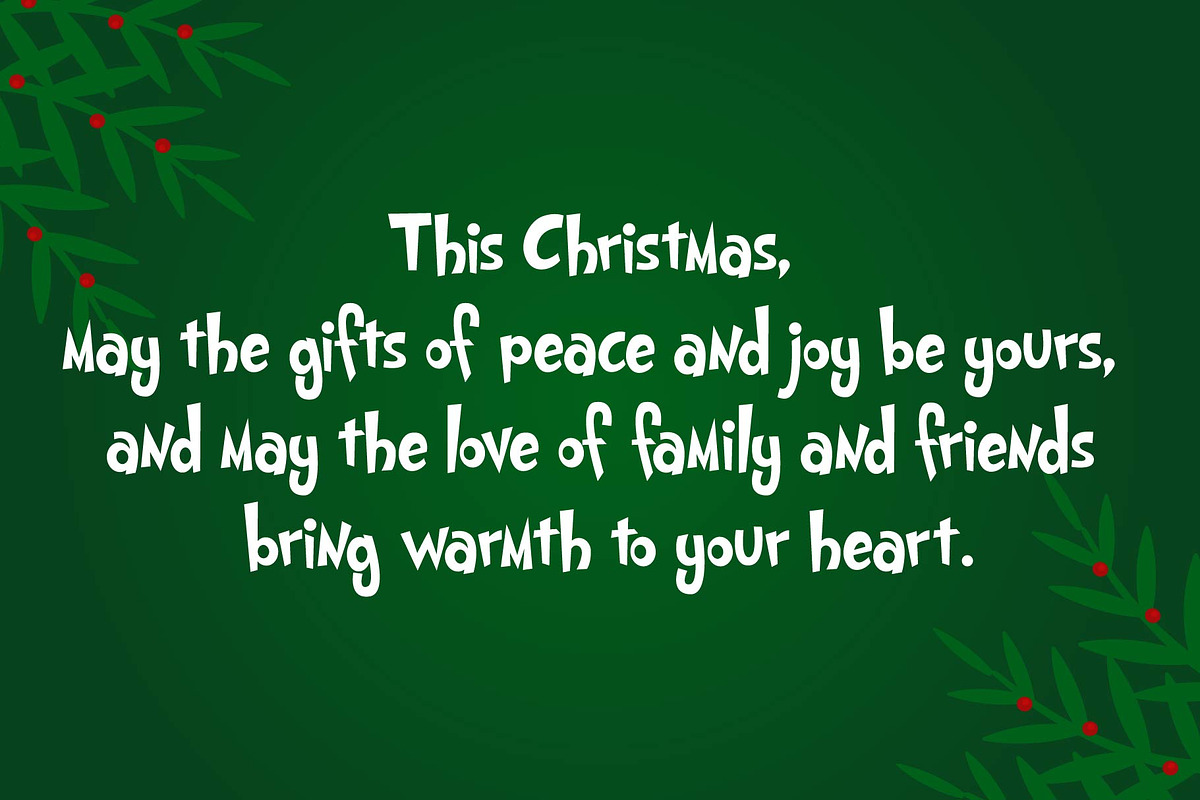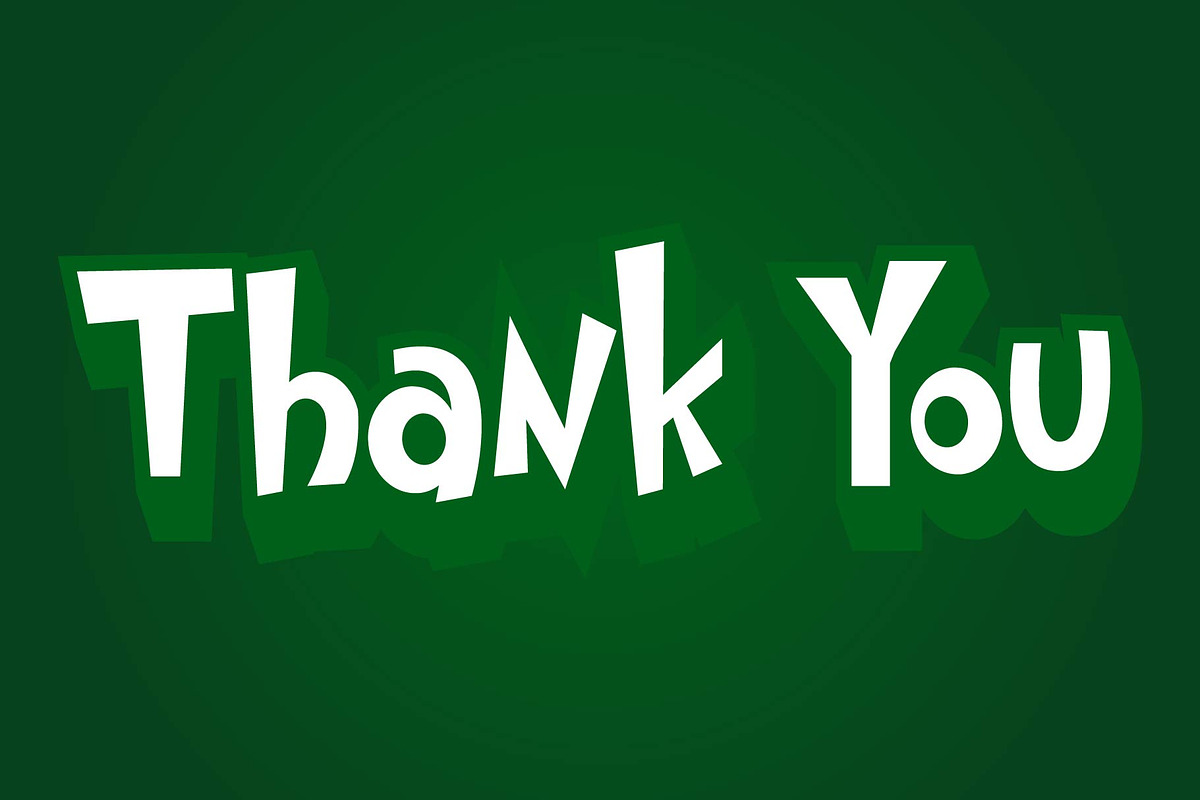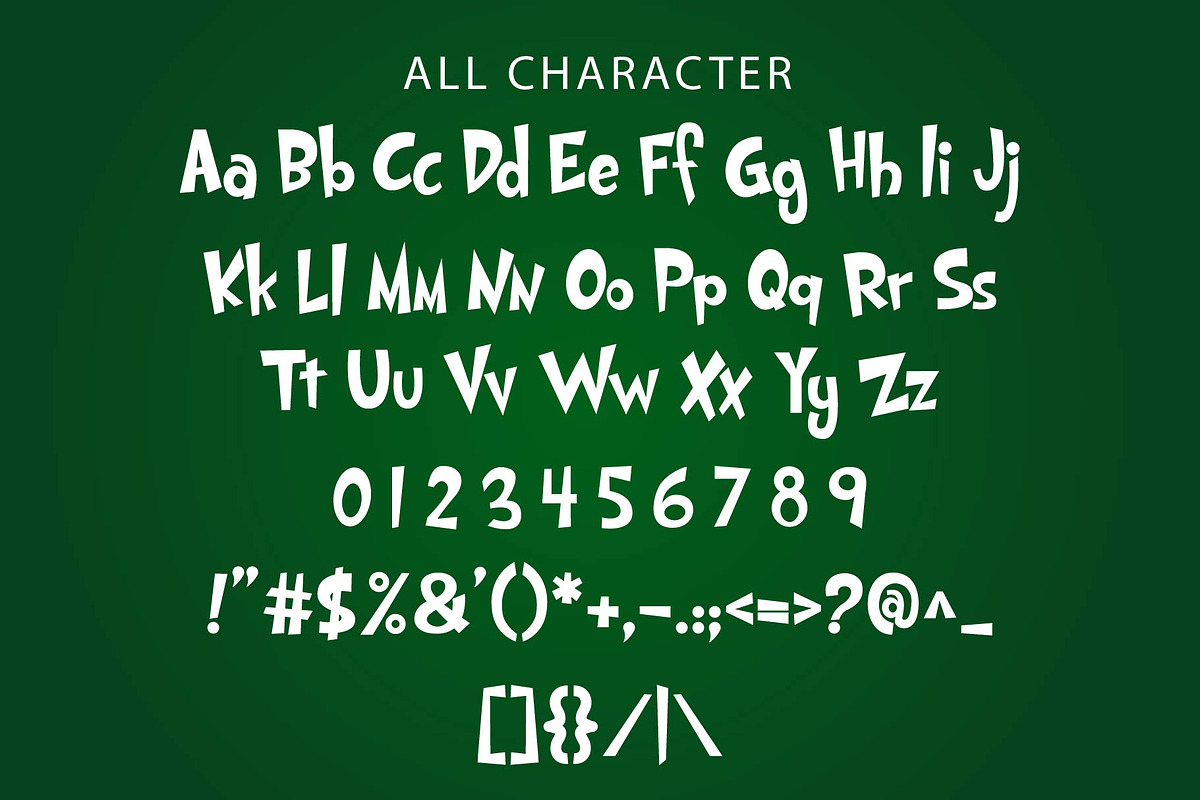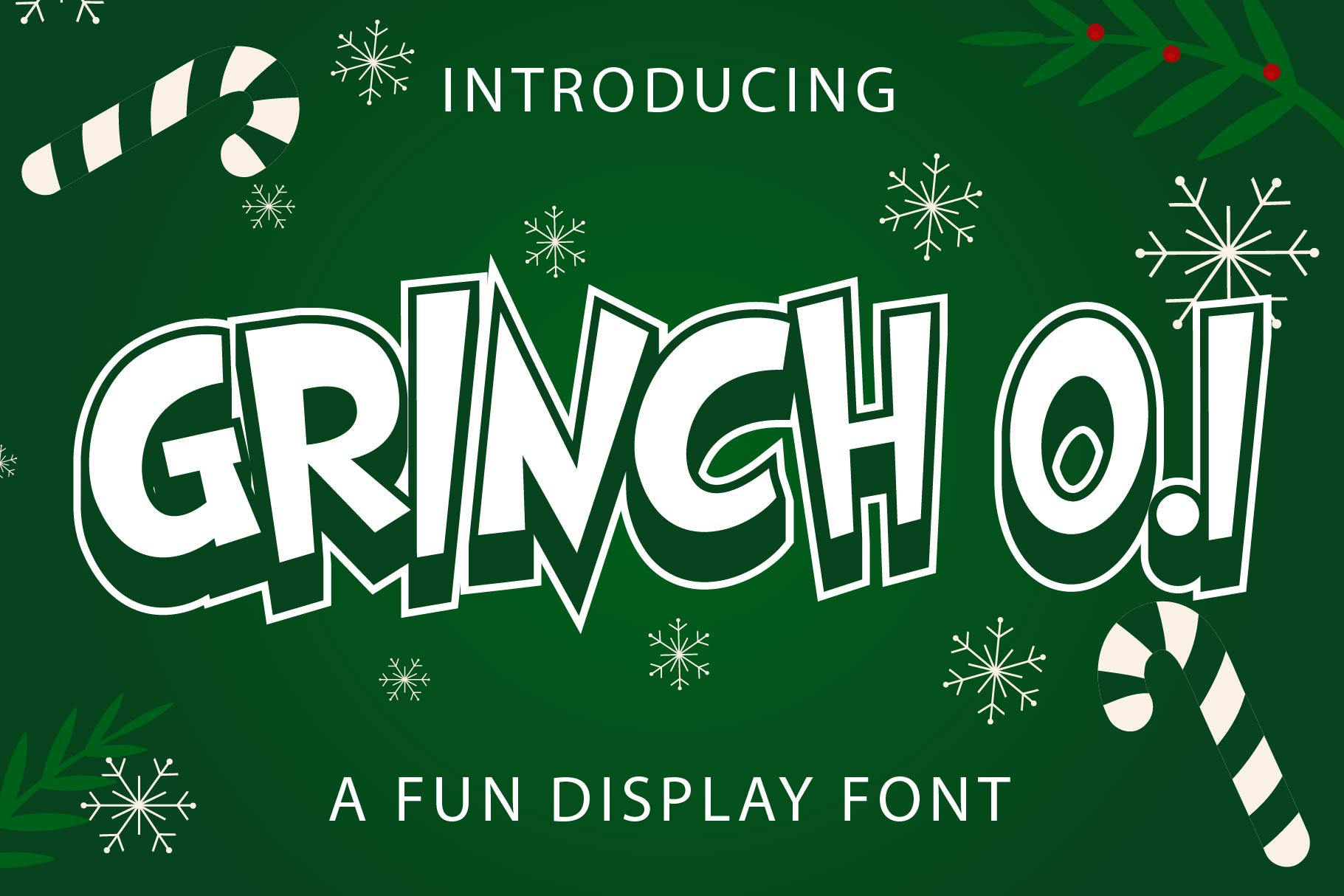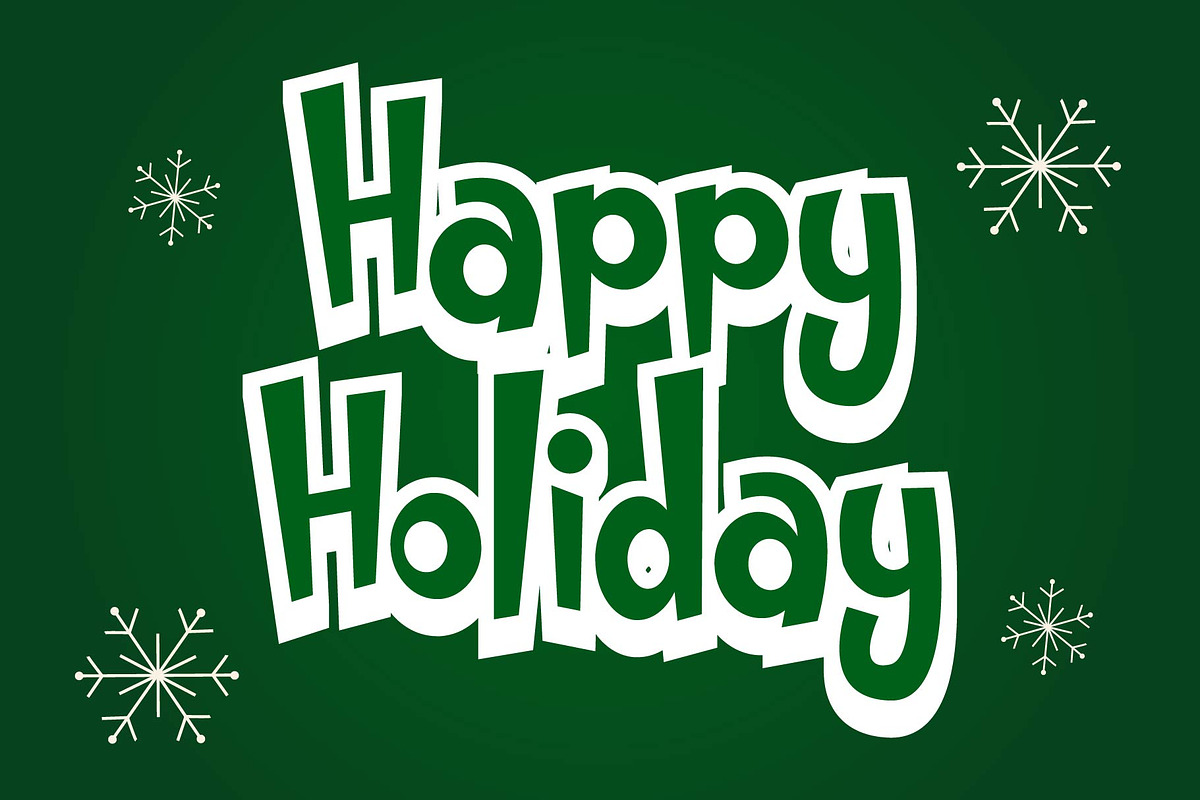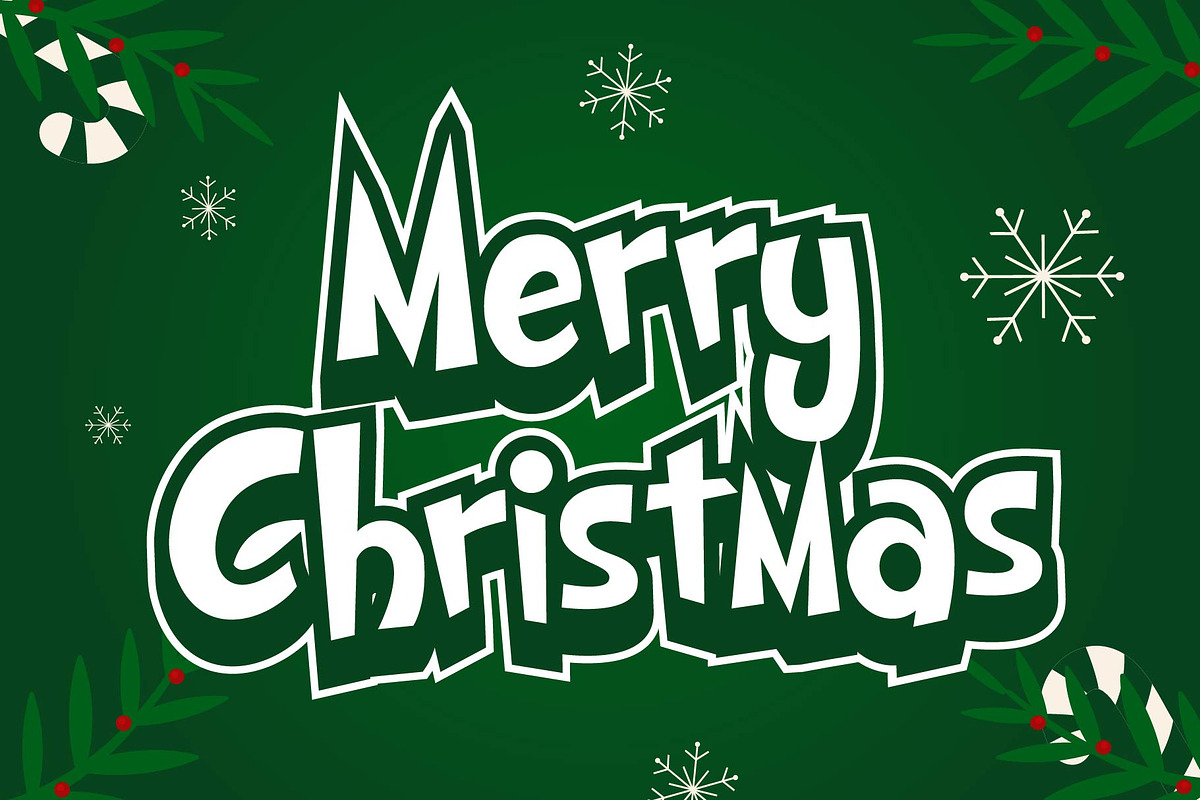
Grinch 0.1 - Christmas Display Font
Introducing Grinch 0.1 an exquisite Stylish Font, seamlessly blending modern quality with the whimsical charm of the Grinch Cartoon Font. Ideal for title headings, movie names, and T-shirt designs, this font boasts 96 meticulously designed glyphs and 95 characters, embodying a popular and captivating concept that adds flair to any creative project.